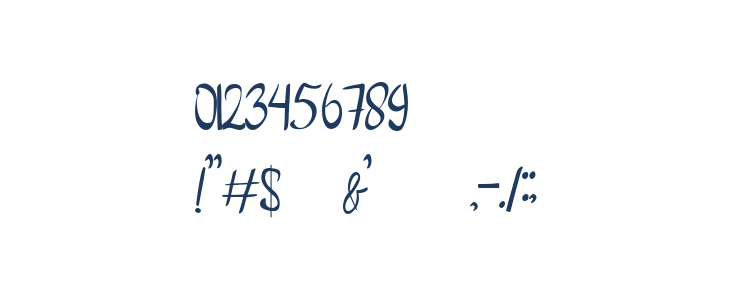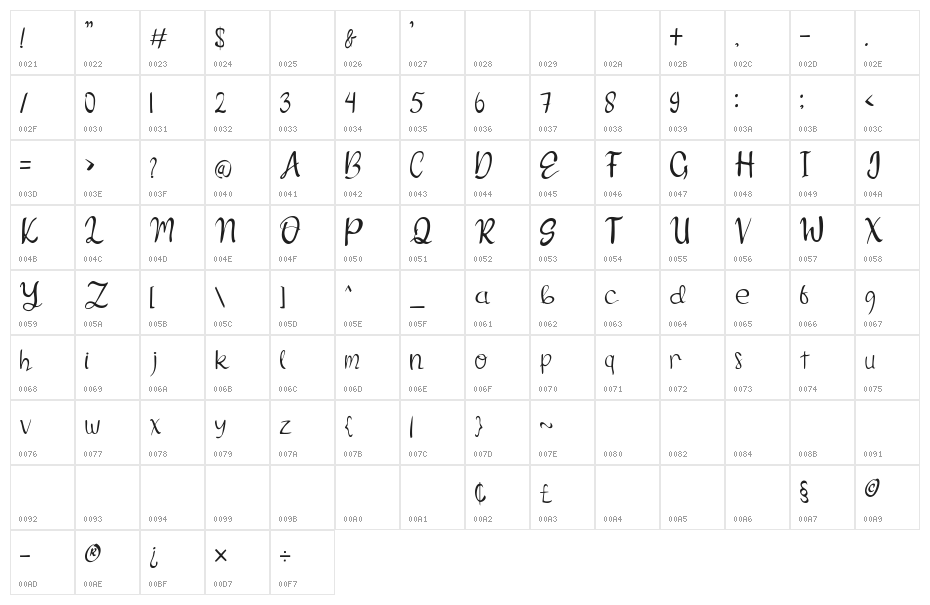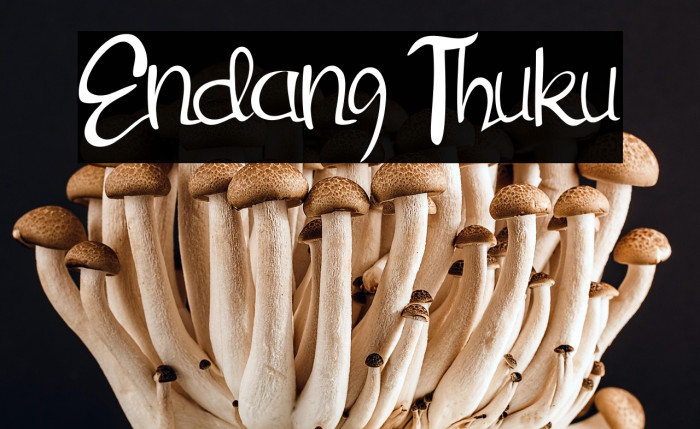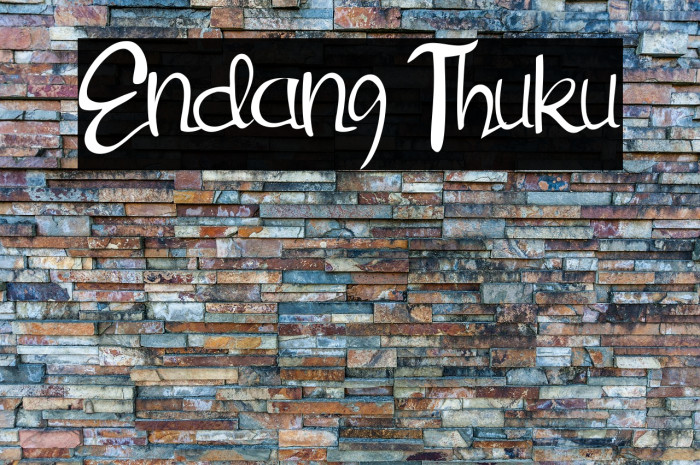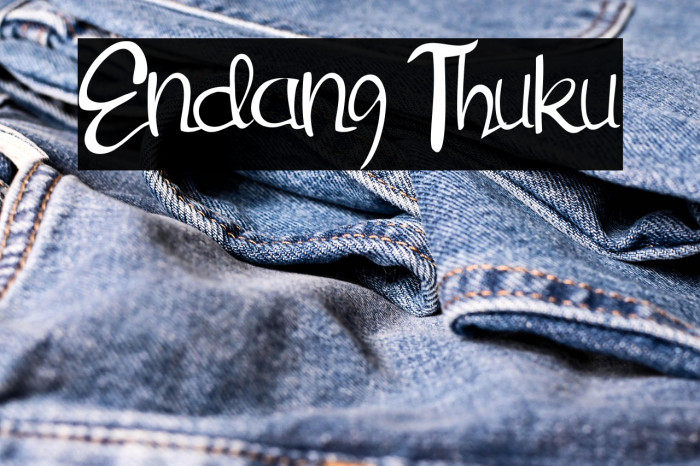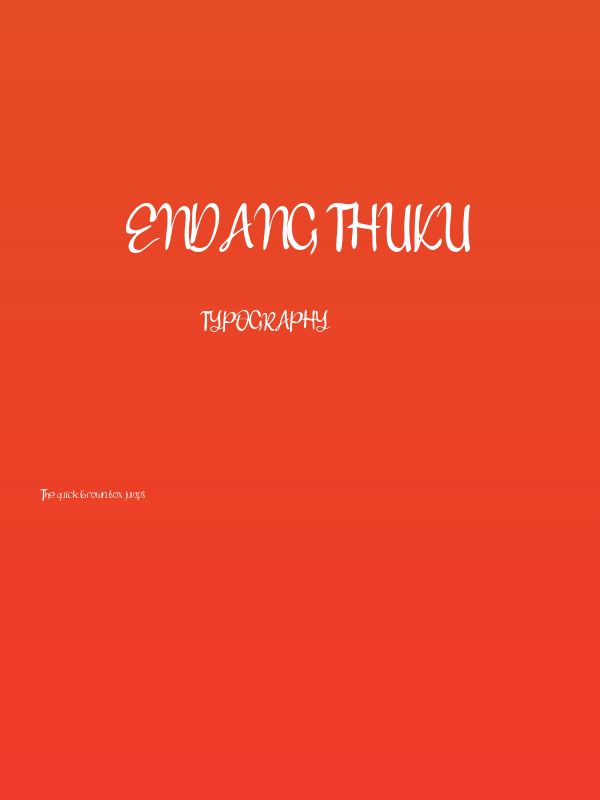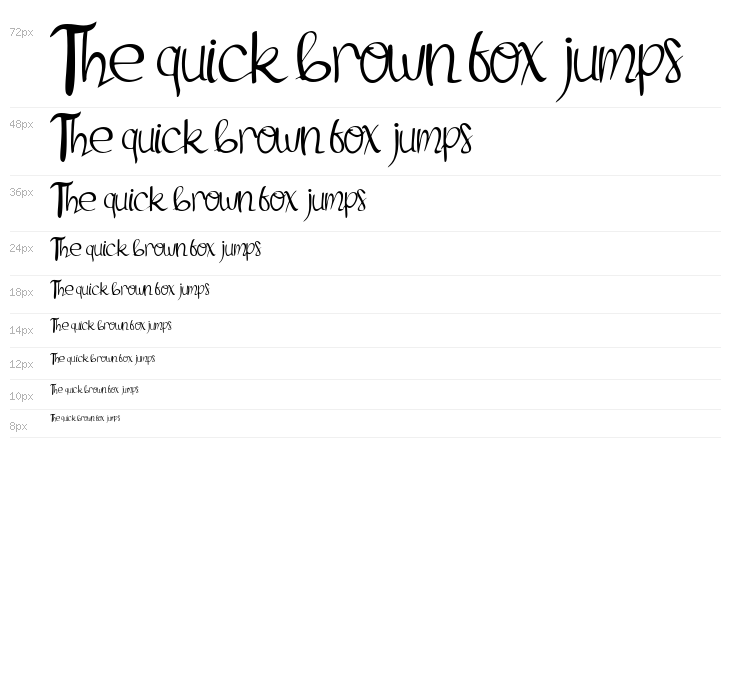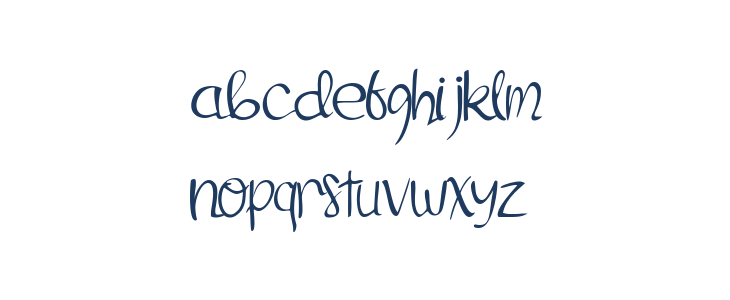
Endang Thuku Font
Endang Thuku Description
This font features a lively and dynamic script style with a playful and whimsical character. The letters are interconnected with smooth, flowing strokes that give it a handwritten feel. The uppercase letters are bold and prominent, while the lowercase letters maintain a consistent fluidity. The numbers and special characters follow the same playful style, making the font versatile for various creative applications. Its unique charm and personality make it suitable for projects that require a personal touch or a sense of fun and creativity.
Use CaseLogos, Headlines, Creative projects
Proposed ProjectsIdeal for greeting cards, invitations, playful branding, and creative posters.